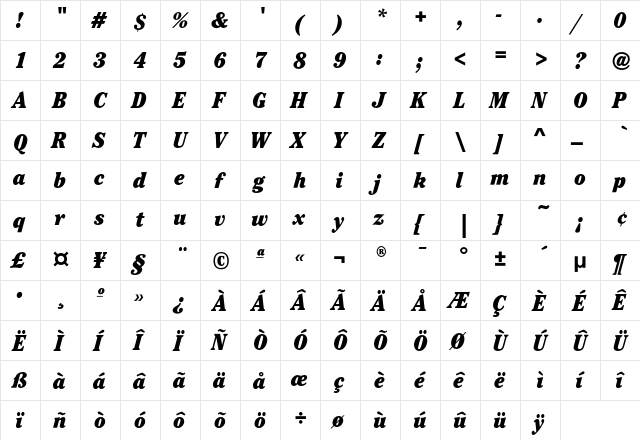
CheltenhamEF-UltraCondensIta Regular
Design Context for CheltenhamEF-UltraCondensIta Typeface
CheltenhamEF-UltraCondensIta offers clean, dependable letterforms without strong stylistic allegiance, making it a practical choice for designers who need flexibility. Its narrow stance lets it pack a punch even in space-constrained designs.
Pro Tip: Use CheltenhamEF-UltraCondensIta in both headline and body roles to test its range before committing to a single application.